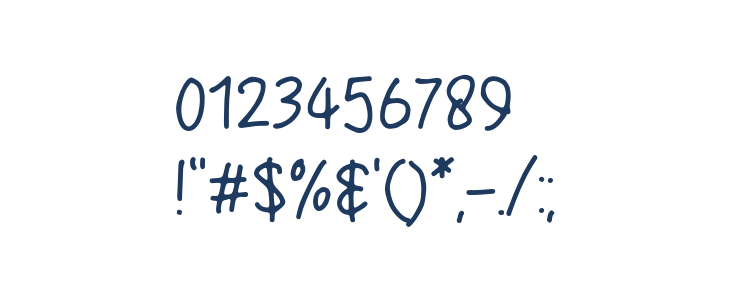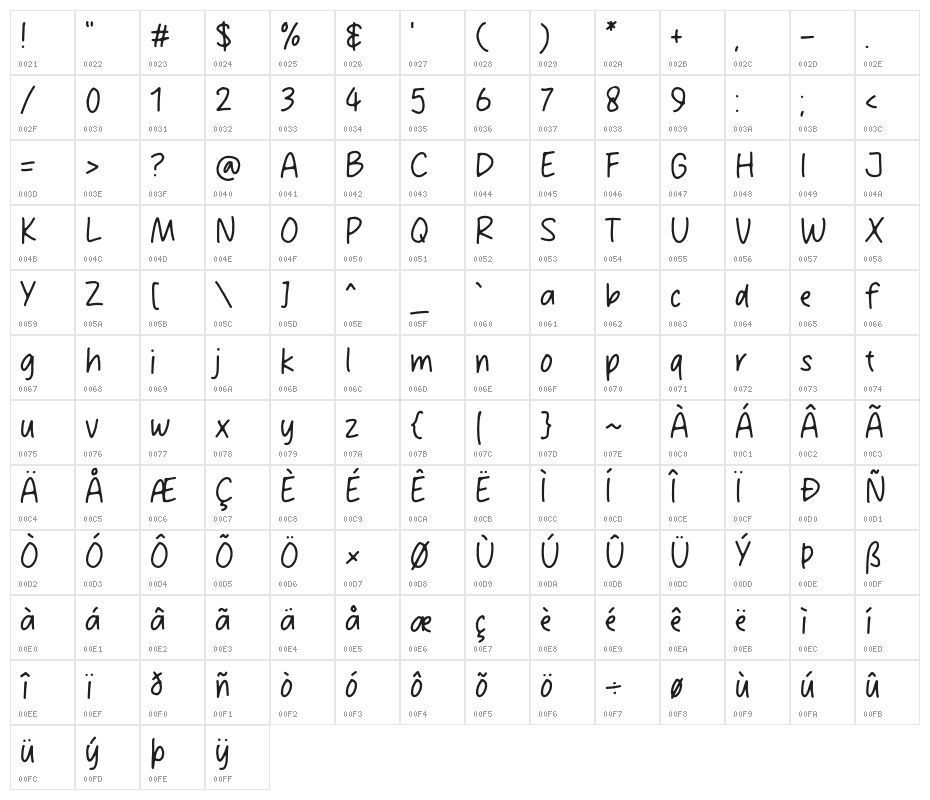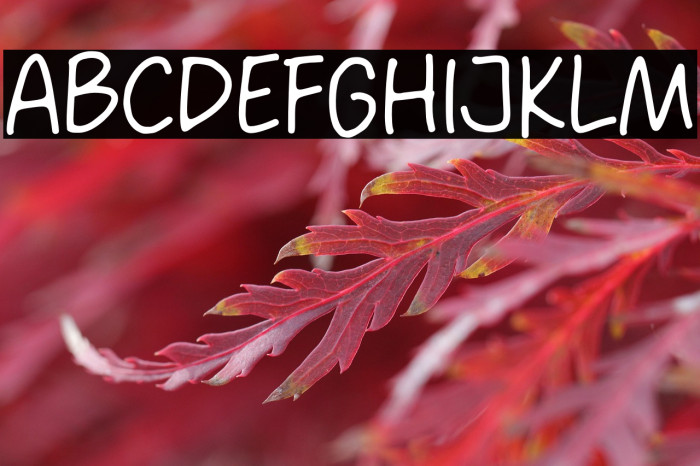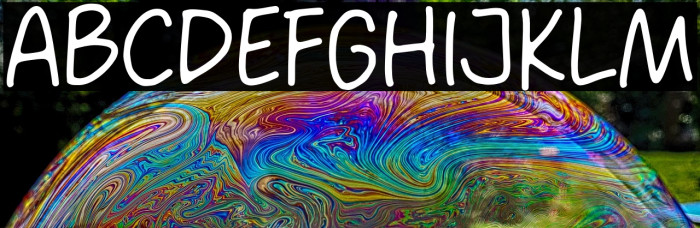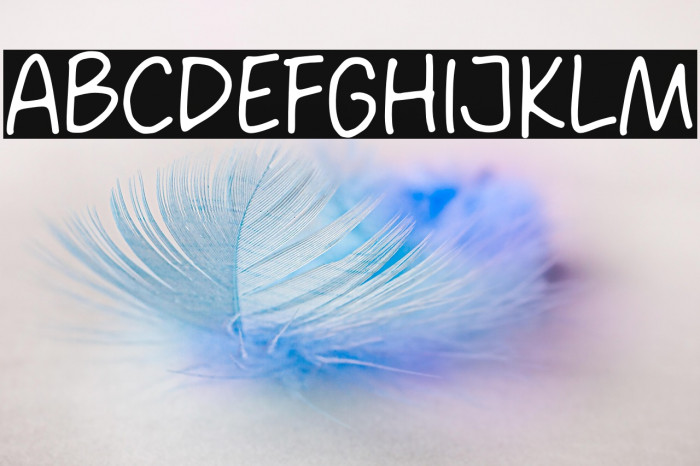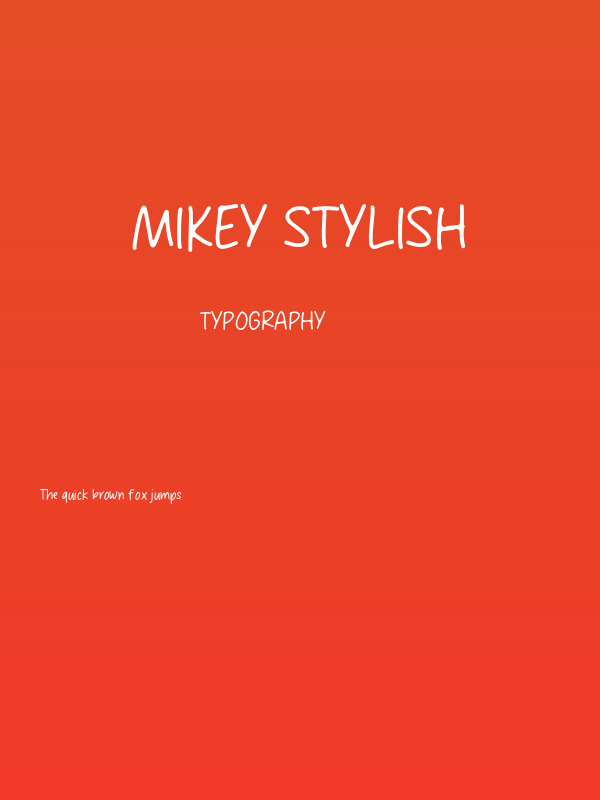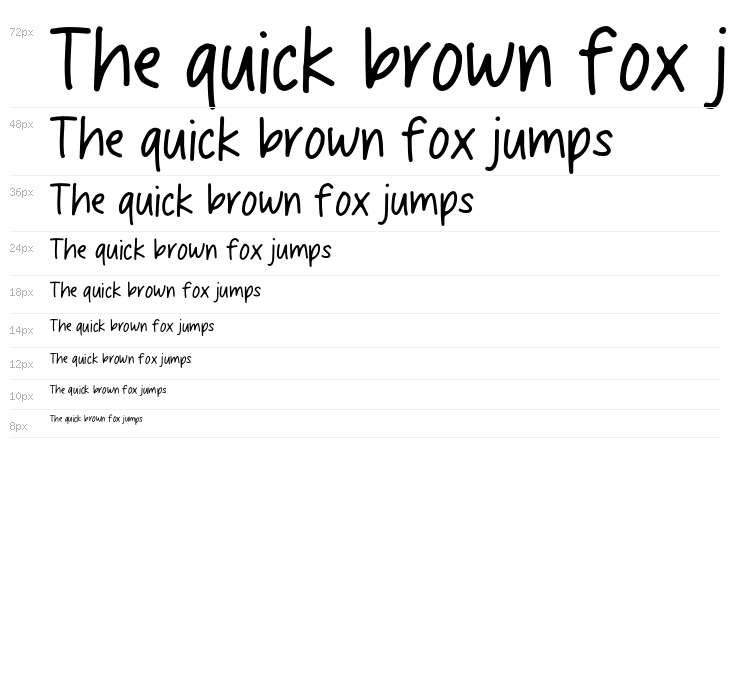
Mikey Stylish Font
Mikey Stylish Description
This font exudes a playful and casual handwritten style, characterized by its smooth, flowing curves and slightly irregular letterforms. Each character is crafted with a sense of spontaneity, giving it a lively and approachable feel. The strokes are consistent in weight, providing a uniform appearance across both uppercase and lowercase letters. The numbers and special characters maintain the same whimsical quality, ensuring a cohesive look throughout. This font is perfect for projects that require a personal touch, such as greeting cards, invitations, or informal branding materials.
| Proposed Projects | Ideal for greeting cards, invitations, children's books, and informal branding. |